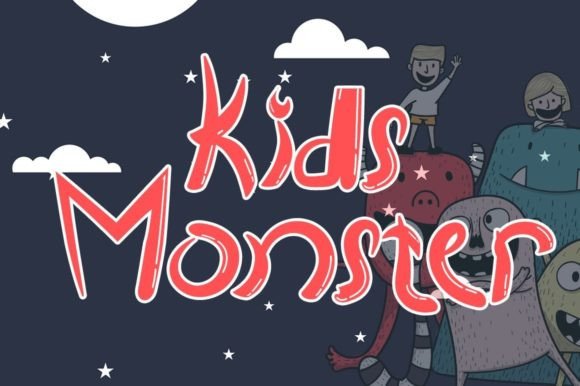
Unveil the Enchanting World of Kids Monster Font: A Spark of Joy for Your Creative Endeavors
In the vast realm of typography, where letters dance and stories unfold, there exists a font that captivates hearts and ignites imaginations - the Kids Monster Font. This delightful creation from Bill Kiss Studio is a symphony of elegance and playfulness, a font that dances across your designs with a joyous rhythm.
With its clean lines and elegant curves, Kids Monster Font possesses an air of sophistication, effortlessly enhancing the beauty of your designs. Its carefully crafted characters exude a sense of freshness, bringing a breath of new life to your projects. Whether you're crafting wedding invitations, designing playful posters, or creating captivating social media graphics, Kids Monster Font is your perfect companion.
Step into a world of limitless creativity as you explore the boundless possibilities of Kids Monster Font. Its versatility knows no bounds, seamlessly adapting to a myriad of design styles and themes. From whimsical illustrations to formal documents, this font adds a touch of magic to every project it graces.
Unleash your inner artist and let your imagination run wild with Kids Monster Font. Its playful spirit invites you to experiment, to push the boundaries of creativity, and to craft designs that leave a lasting impression.